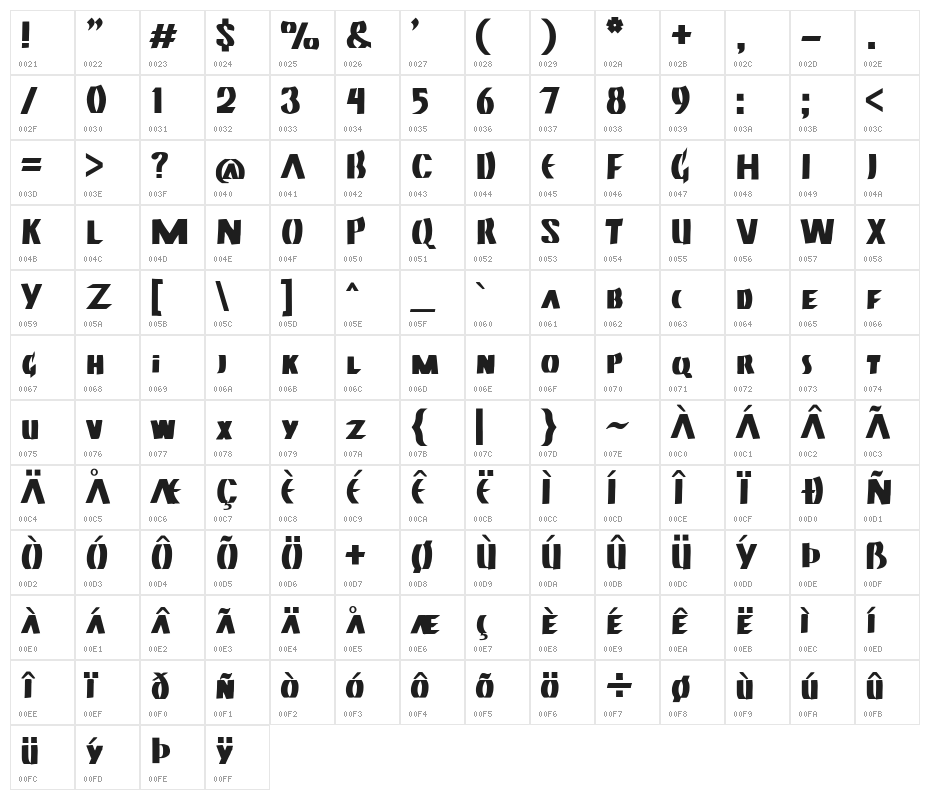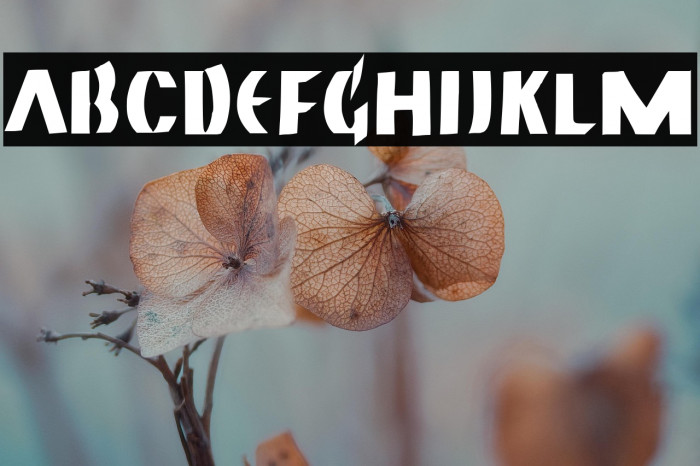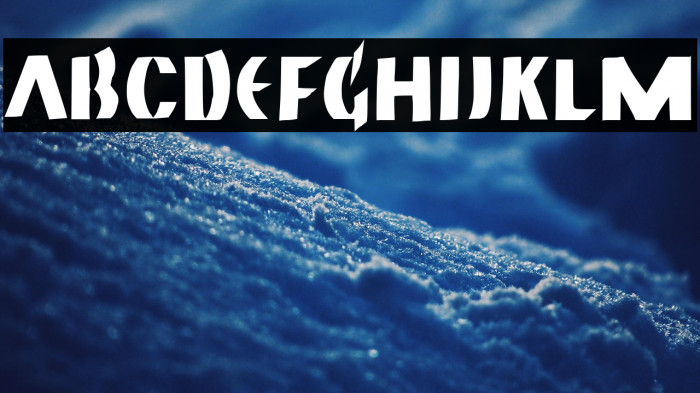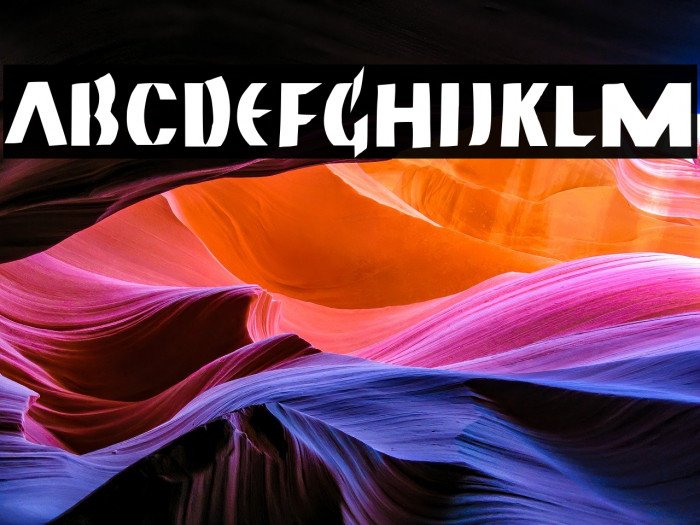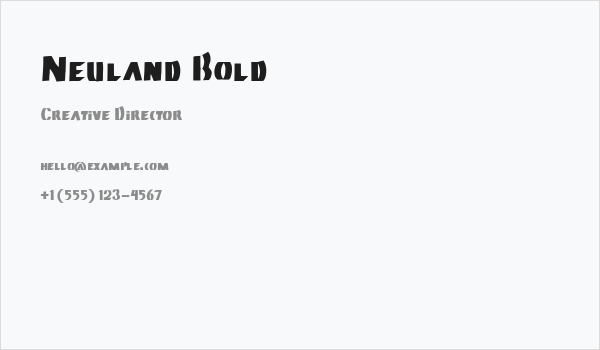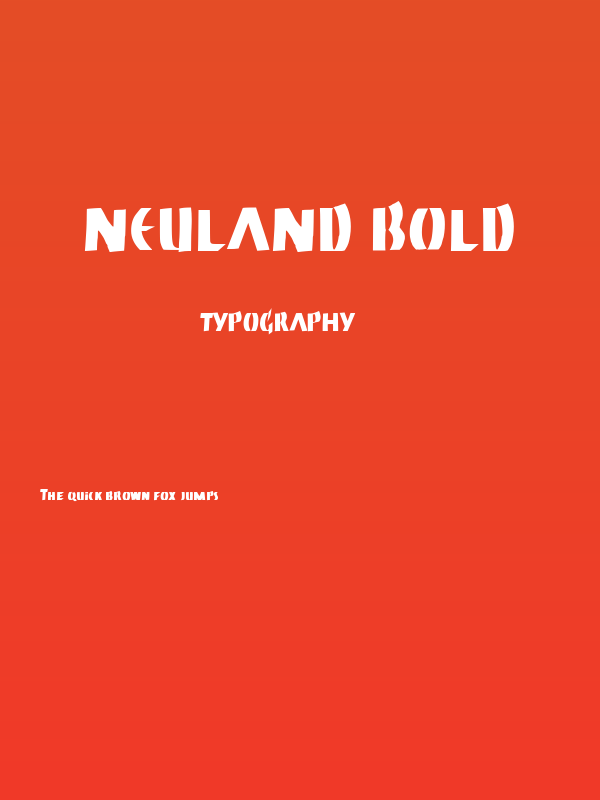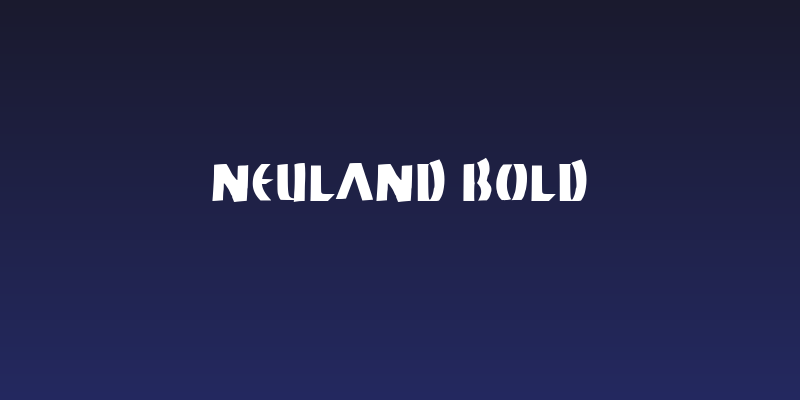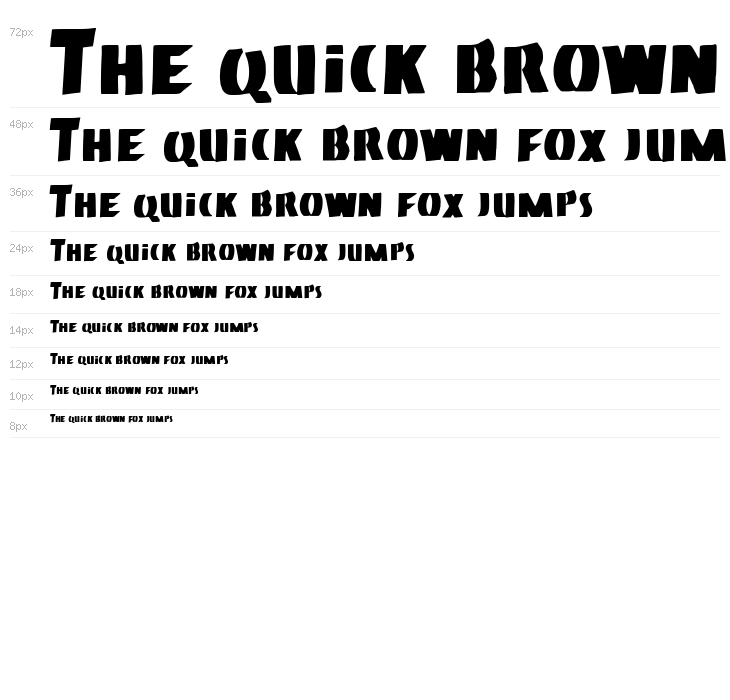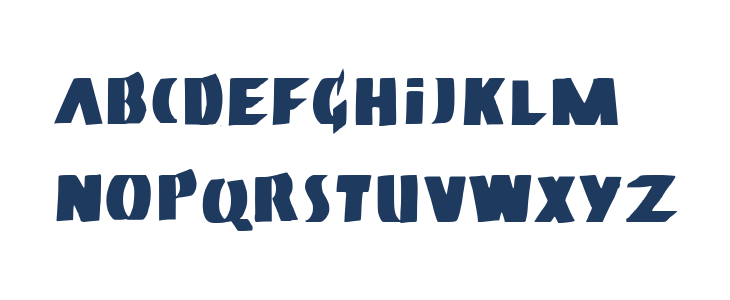
Neuland Bold Font
Neuland Bold Description
This font features bold, angular characters with a distinct geometric style. The uppercase letters are particularly striking, with sharp edges and a strong presence. The lowercase letters maintain the boldness, offering a cohesive look across both cases. Numbers are equally bold and angular, ensuring consistency throughout. The special characters are designed to match the overall aesthetic, making them suitable for impactful designs. The font's style is reminiscent of early 20th-century design, with a modern twist that makes it versatile for various applications.
| Proposed Projects | Ideal for posters, logos, branding, and any design requiring a strong visual impact. |